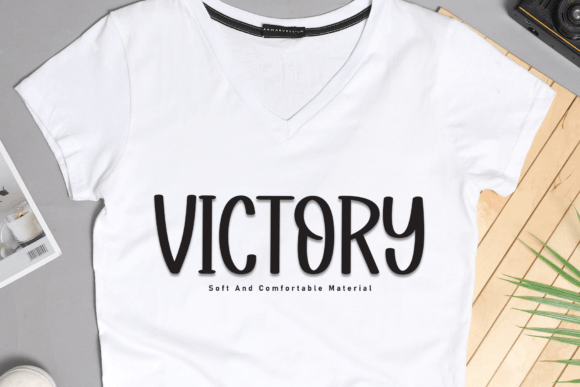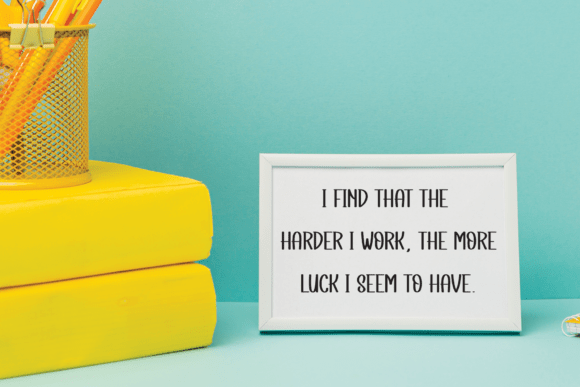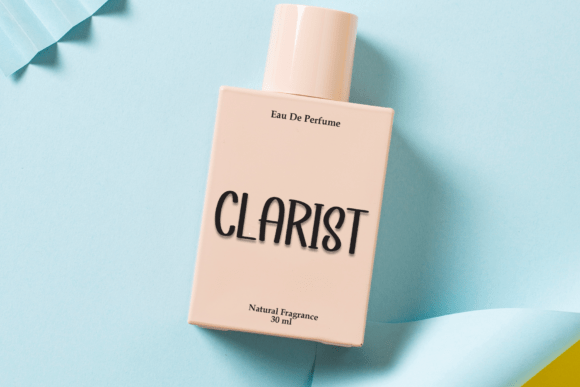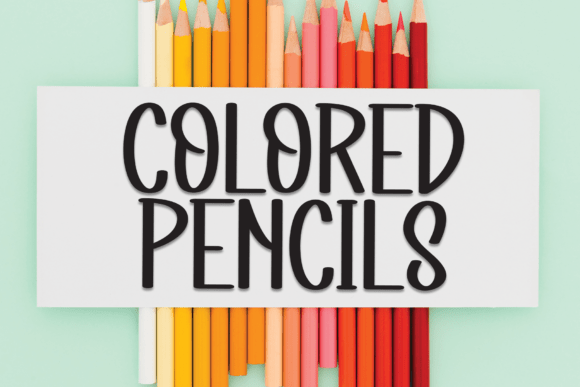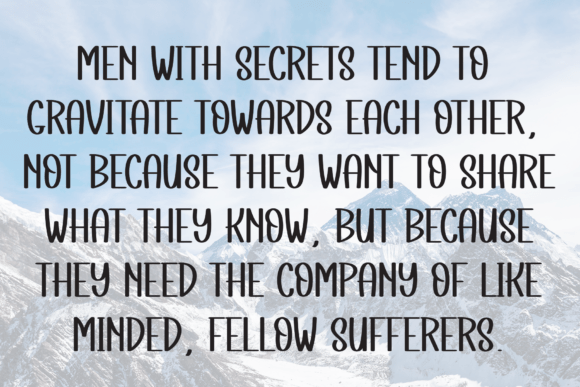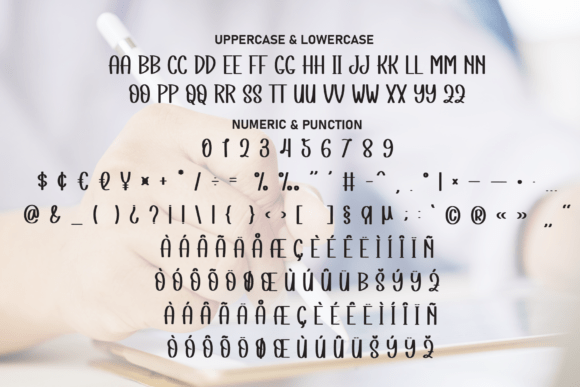
The Power of a Perfect Signature
Have you ever stared at a blank document or presentation, waiting for the perfect font to emerge and bring your creative vision to life? You know that moment when the words flow effortlessly, and the design seems to take shape in front of your eyes? That’s what we’re talking about today – the art of crafting a digital signature that leaves a lasting impression.
Enter the Digital Signature Font, a game-changing typeface designed to elevate your projects with a modern, yet professional touch. Its clean, well-rounded characters give your work a polished and impactful appearance, making it perfect for branding, logos, digital forms, and stylish presentations.
For designers, this font is a valuable asset that can take your designs to the next level. With the Digital Signature Font, you can add a touch of sophistication to your digital creations and make a lasting impression on your audience.
Digital Signature Font Key Features
- Unique Characteristic: The digital signature font includes a unique ‘ signature’ glyph that can be customized with the user’s name or initials, adding a personal touch to digital documents.
- Font Styles: The font comes in three styles: regular, bold, and italic, providing users with flexibility in terms of font weight and style.
- Scalability: The digital signature font is designed to be scalable, allowing it to be resized without compromising its quality or readability.
Digital Signature Font Review
I recently had the chance to work with the Digital Signature Font, and here’s my honest review.
- The font is highly customizable, allowing for a wide range of design possibilities.
- The digital signature aspect is well-executed, making it easy to integrate with existing branding.
- The font is highly legible, even at smaller sizes.
- The font can feel a bit generic at times, lacking a unique personality.
- The customization options can be overwhelming for non-designers.
- The font doesn’t quite feel “digital” enough, considering the name.
Overall, the Digital Signature Font is a solid choice for businesses looking to establish a consistent brand identity. While it may not be the most exciting font, it gets the job done. With a bit of refinement and attention to detail, this font has the potential to be a real winner.
Use a digital signature font to create a professional and unique signature for your business cards, letterheads, or website.
Experiment with different font styles and effects to create a signature that reflects your personality or brand.
Consider using a digital signature font for contracts, agreements, or other important documents to add an extra layer of authenticity and security.
Can I use a Digital Signature Font to create a physical signature?
While digital signature fonts can be used to create a digital representation of a signature, they are not suitable for creating a physical signature. If you need to create a physical signature, you may want to consider using a traditional pen or marker. However, some digital signature fonts may offer a “printable” or “physical” version of the signature, which can be used for